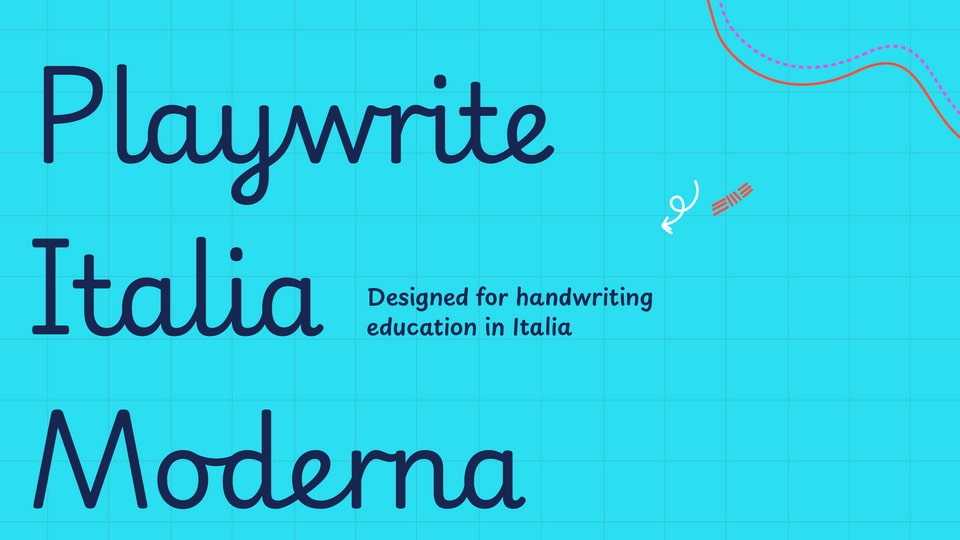
Download Playwrite Italia font, a typeface that allows the creation of primary school cursive fonts. Italy holds an important place in the historical development of handwriting styles.